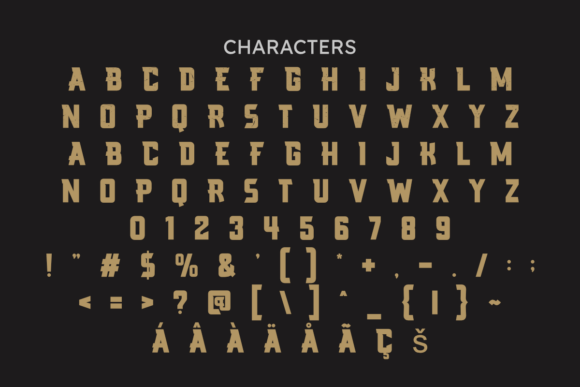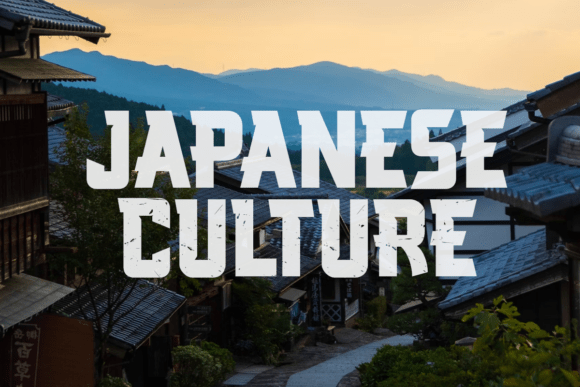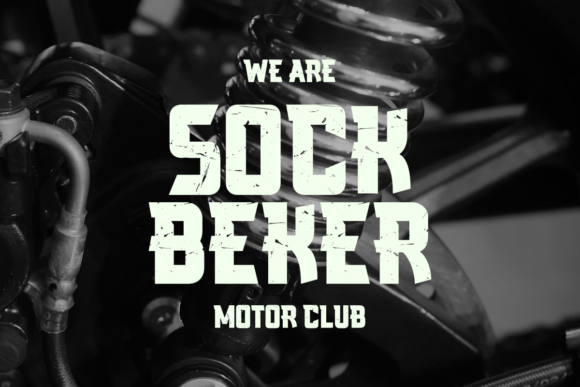
Introducing Dirty Lines Font: Unleash the Raw Energy of Vintage Sports Typography
Are you looking for a font that embodies the grit, strength, and raw energy of old-school athletics? Look no further than Dirty Lines, a bold, vintage-inspired sporty font that’s perfect for designers and crafters seeking to add an edge to their projects. With its distressed texture and sharp cuts, this typeface channels the spirit of worn jerseys, mud-splattered gear, and the rough-and-ready world of retro sports.
Inspiration from Retro Sports Typography
Dirty Lines draws inspiration from the iconic typography of retro sports, evoking memories of worn-out sports equipment, vintage posters, and distressed team apparel. This font is designed to capture the essence of old-school athletics, with a rugged personality that instantly commands attention. Whether you’re designing for streetwear branding, grunge-style logos, extreme sports posters, team apparel, or throwback race graphics, Dirty Lines delivers a bold impact with unmistakable attitude.
Key Features of Dirty Lines Font
- Distressed Texture: The font’s distressed texture gives it a worn, vintage look that’s perfect for creating authentic and edgy designs.
- Sharp Cuts: The sharp cuts and bold lines of Dirty Lines add to its rugged personality, making it ideal for designs that require a strong, sporty feel.
- PUA Encoding: With PUA encoding, you can access all stylistic features and extras with just a few clicks, making it easy to customize your designs.
- Blends Sports and Grunge Typography: Dirty Lines seamlessly blends elements of sports and grunge typography, making it stylistically bold and highly distinctive.
Dirty Lines is perfect for designers and crafters seeking to add an edge to their projects. Its versatility makes it suitable for a wide range of applications, including:
- Streetwear Branding: Create bold, eye-catching logos and branding materials that exude a sporty, edgy vibe.
- Grunge-Style Logos: Add a touch of nostalgia to your designs with Dirty Lines’ distressed texture and bold lines.
- Extreme Sports Posters: Create visually striking posters that capture the raw energy and excitement of extreme sports.
- Team Apparel: Design bold, sporty apparel that showcases your team’s personality and style.
- Throwback Race Graphics: Create retro-style graphics that evoke memories of vintage racing and motorsports.
Why Choose Dirty Lines Font?
With Dirty Lines, you can add a touch of authenticity and edge to your designs. This font offers:
- Instant Recognition: The font’s bold, distressed texture and sharp cuts make it instantly recognizable.
- High Versatility: Dirty Lines can be used for a wide range of applications, from streetwear branding to extreme sports posters.
- Easy Customization: With PUA encoding, you can easily access and customize the font’s stylistic features and extras.
Dirty Lines font is the perfect choice for designers and crafters seeking to add a touch of grit, strength, and raw energy to their projects. With its distressed texture, sharp cuts, and bold lines, this vintage-inspired sporty font is sure to make a statement. Whether you’re designing for streetwear branding, grunge-style logos, extreme sports posters, team apparel, or throwback race graphics, Dirty Lines delivers a bold impact with unmistakable attitude.